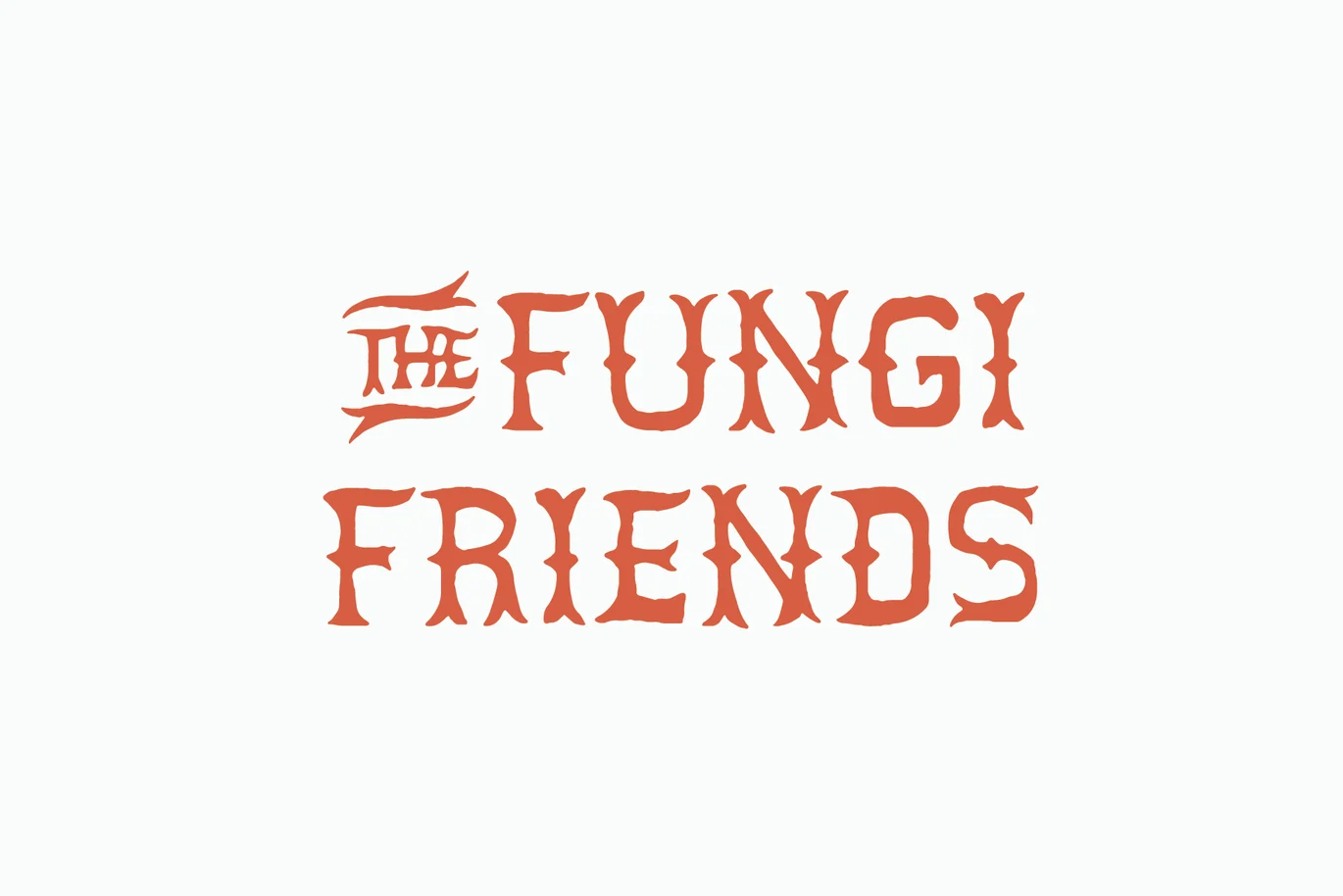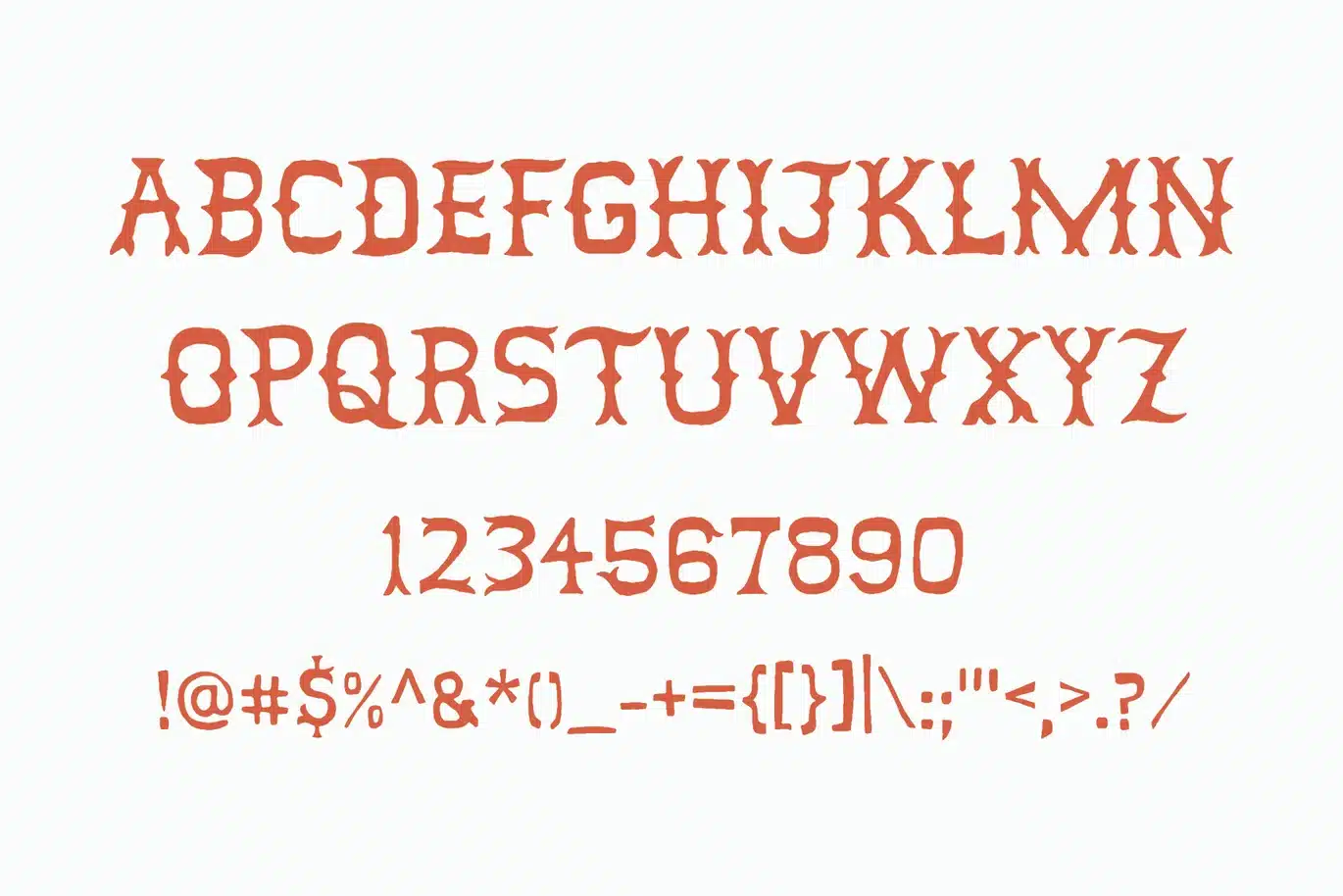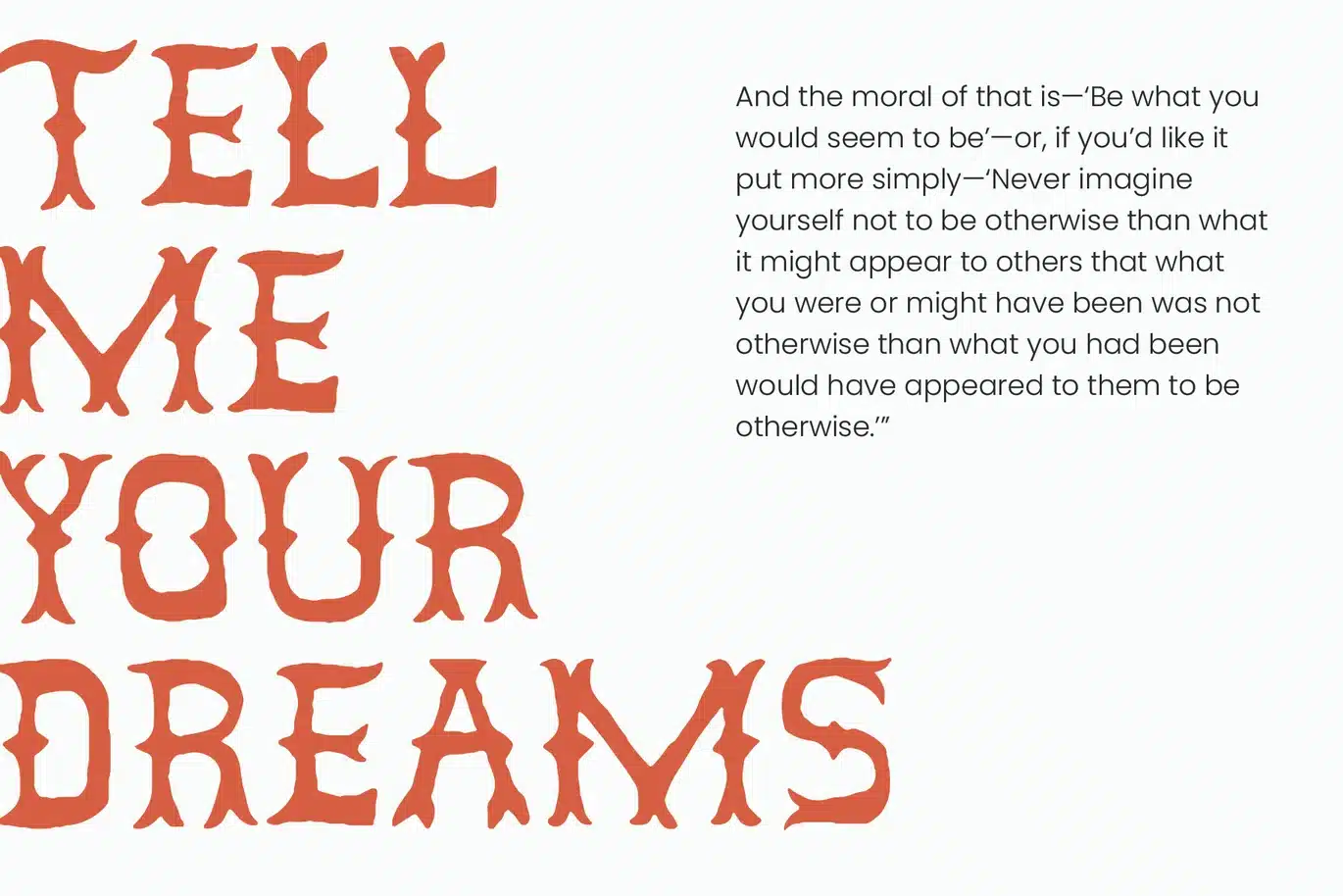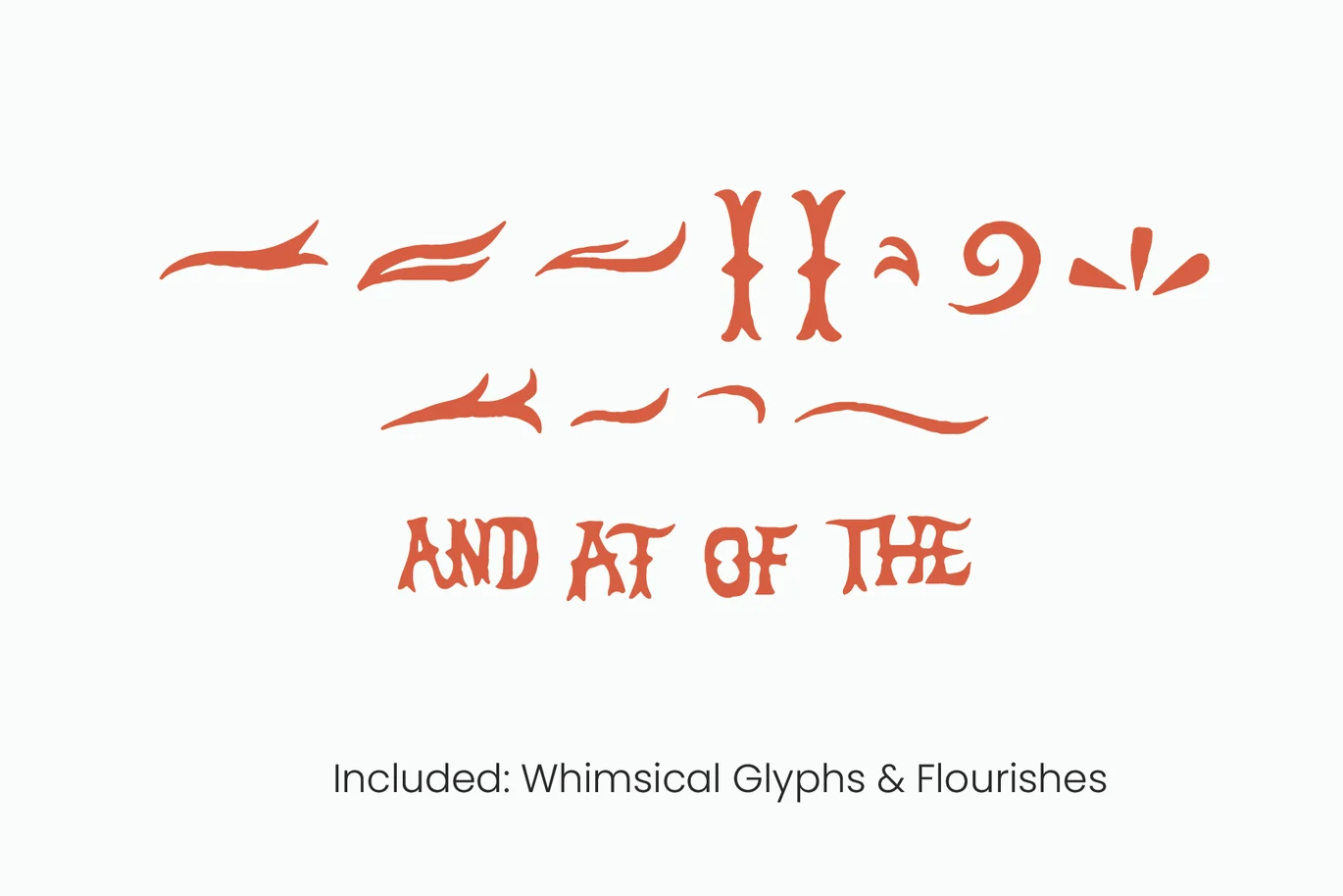
In the Meadow Font
Embrace this friendly font, In the Meadow. Not only is this hand-drawn display font unique and whimsical, it also comes with 16 matching glyphs to elevate and inspire your designs.